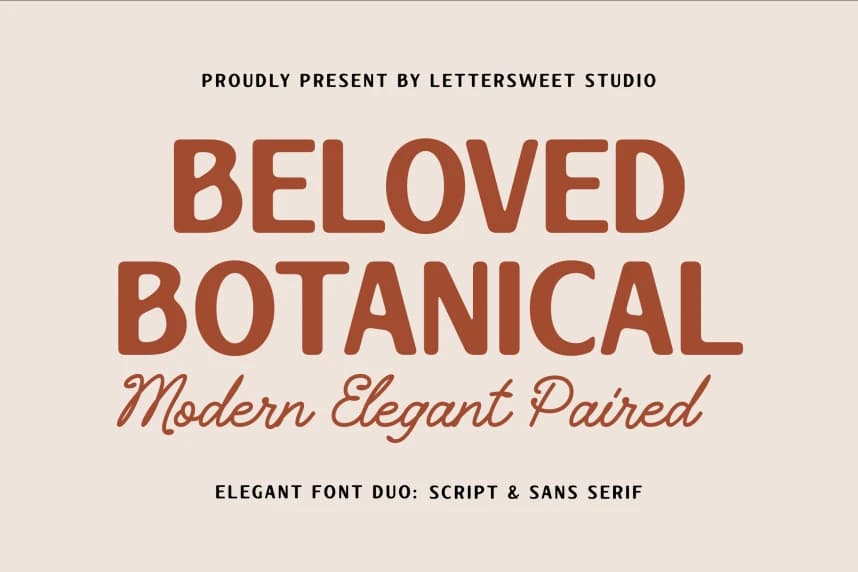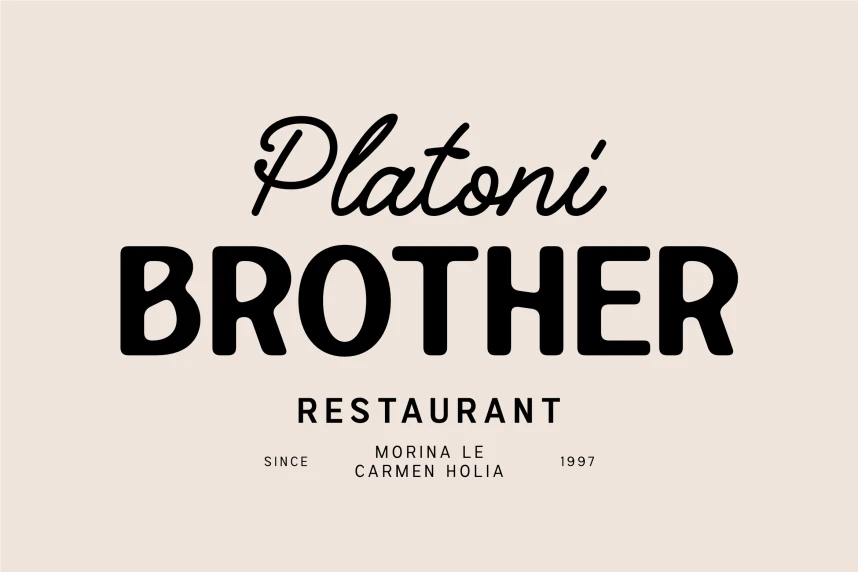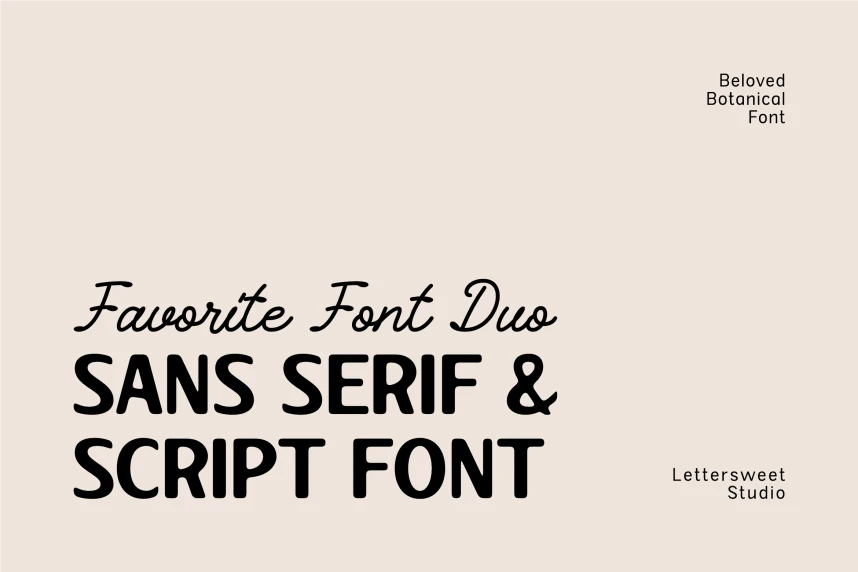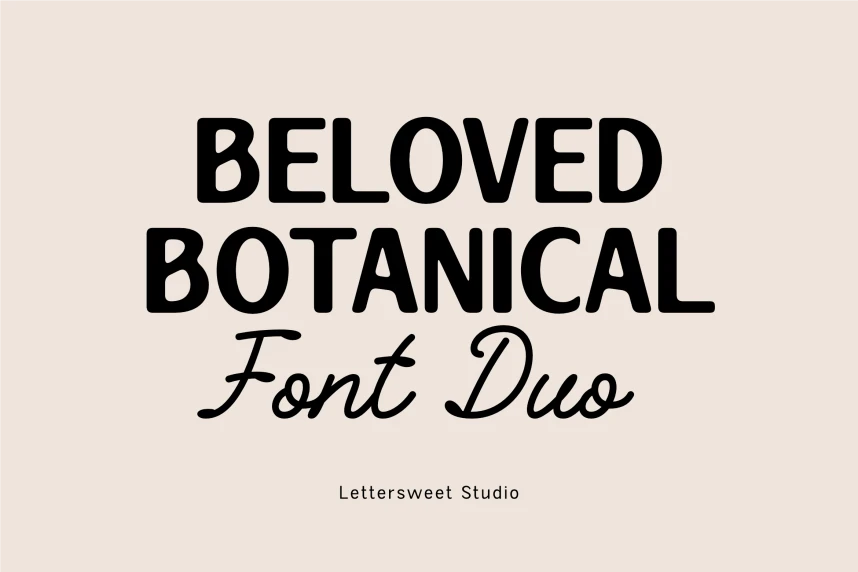
Beloved Botanical Font is a sophisticated font duo crafted to bring effortless elegance into your design. Combining a bold, modern sans serif with a flowing, natural script, this pair creates a striking contrast that feels both refined and organic.